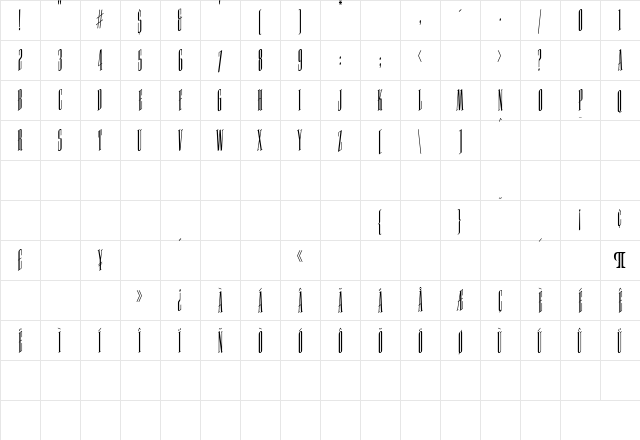
Revolution Regular Free Font
Revolution Regular
Foundry: by Panache Typography,
Revolution Family
Revolution Regular
Design Context for Revolution
Revolution is a composed and adaptable typeface that performs quietly and consistently across a wide range of design contexts.